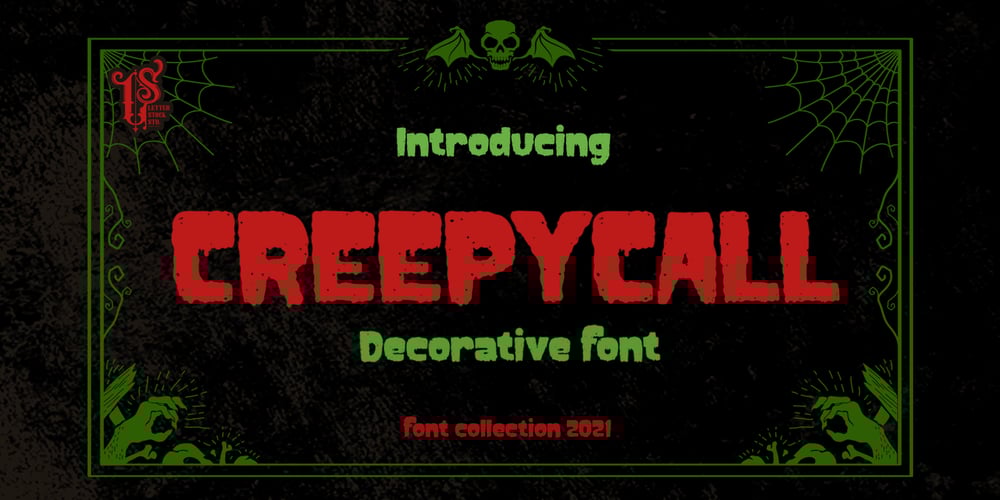
Creepycall Font Family was designed by Studio LetterStock and published by LetterStock. Creepycall contains 1 styles and family package options. **Creepycall Font**This pair was inspired by the vintage halloween poster design that i saw on some coffee shop, It was crafted by hand specially to add natural handmade feeling in its brand identity than i make it clean with pentool.**Opentype features**Creepycall font has 204 character set includedSchoutler Font is very good looking in logo, labels, scary logo, product packaging, halloween invitations, advertising and others.**What includes*** Multilingual support (Western European characters).This fonts works with folowing languages:Afrikaans, Albanian, Asu, Basque, Bemba, Bena, Chiga, Cornish, Danish, English, Estonian, Filipino, Finnish, French, Friulian, Galician, German, Gusii, Indonesian, Irish, Italian, Kabuverdianu, Kalenjin, Kinyarwanda, Low German, Luo, Luxembourgish, Luyia, Machame, Makhuwa-Meetto, Makonde, Malagasy, Malay, Manx, Morisyen, North Ndebele, Norwegian Bokmål, Norwegian Nynorsk, Nyankole, Oromo, Portuguese, Romansh, Rombo, Rundi, Rwa, Samburu, Sango, Sangu, Scottish Gaelic, Sena, Shambala, Shona, Soga, Somali, Spanish, Swahili, Swedish, Swiss German, Taita, Teso, Vunjo, ZuluThank you for using this font.LS